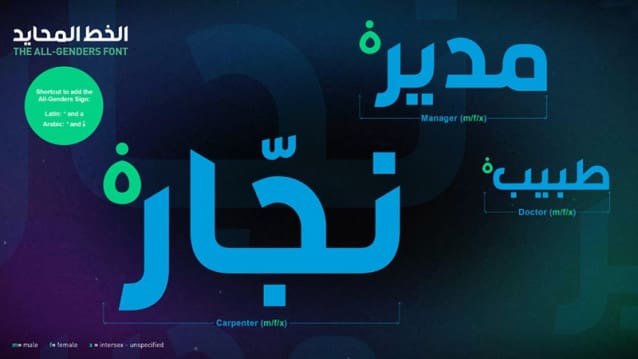
All Genders Font
All Genders Font, is a sans serif  stunning when combined or separately. This sans serif font style is legible and stunningly designed.
ALL-GENDERS FONT
And this is how it works:
Download the All-Genders Font and enter the key combination (Shortcut) after a male ending.